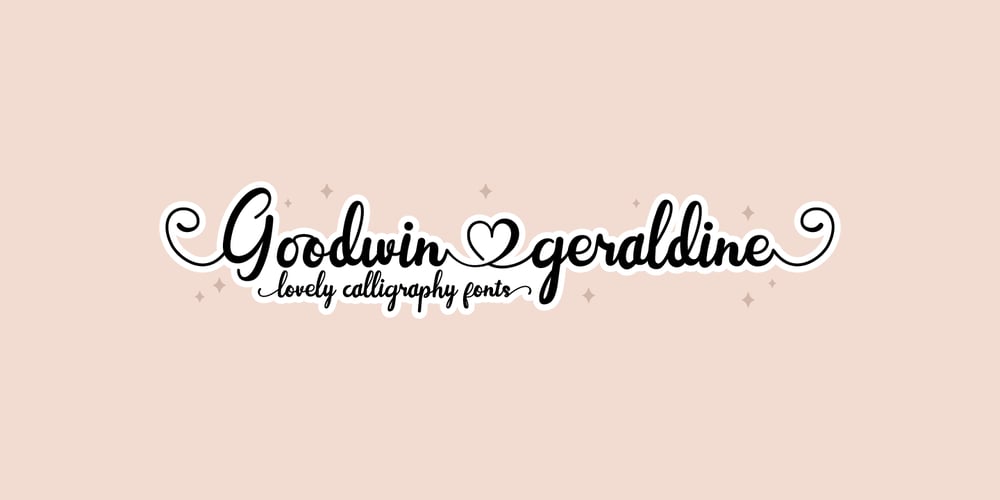
Goodwin Geraldine
Goodwin Geraldine font
Goodwin Geraldine Font Family was designed by Prio Nurokhim Aji and published by Prioritype. Goodwin Geraldine contains 1 styles and family package options. Goodwin Geraldine – Lovely Calligraphy Fonts – A beautiful and charming impression is attached to this font. With a variety of strong combinations to support your design projects such as logos, wedding invitations, business cards, t-shirt designs, posters / quotes, crafts, social media posts etc. See some of the previews above for reference.Features:-Uppercase-Lowercase-Numeral-Punctuation-Multilingual-PUA Encoded-Opentype FeaturesNote: Use a program that supports the Opentype features and the glyph panel is available, so you can see the various alternative characters available. Examples of programs such as Adobe Illustrator, Corel Draw or Inkscape.Thanks.